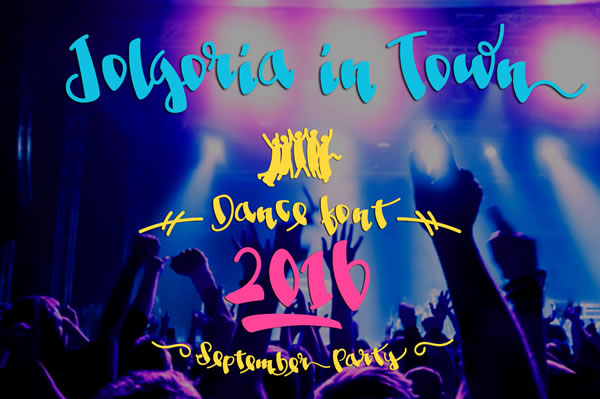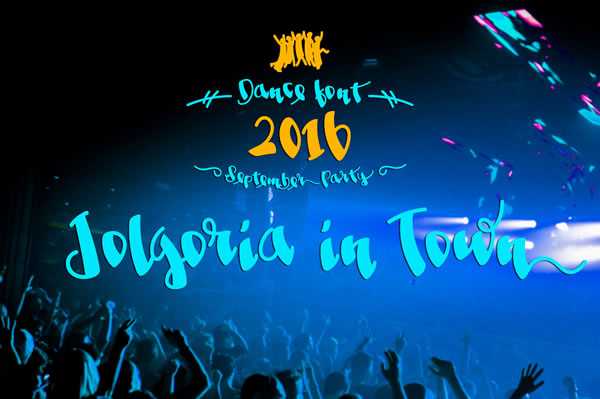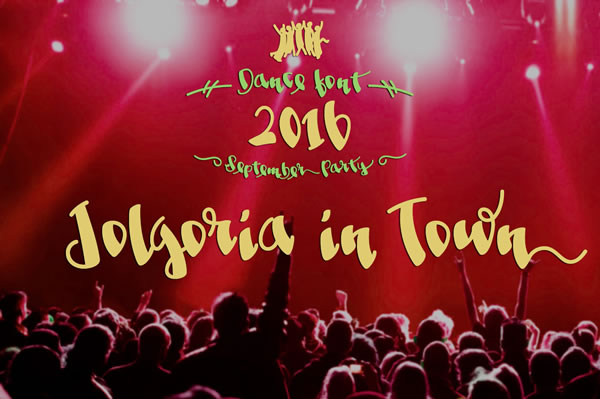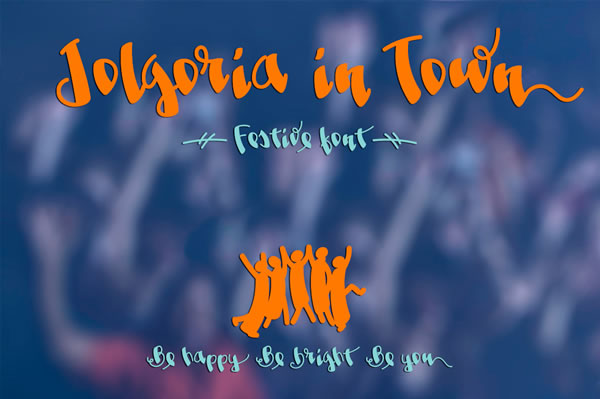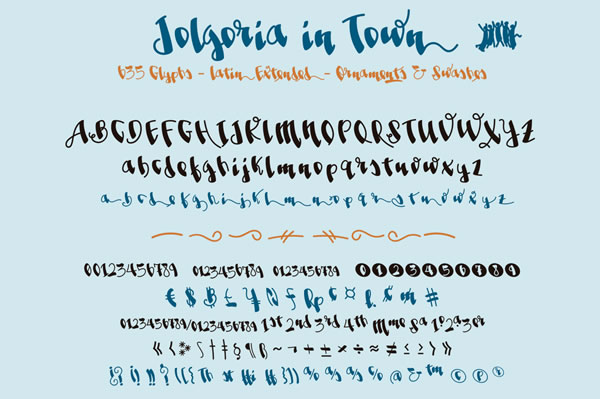
Jolgoria in Town Font
About Jolgoria in Town Font
Jolgoria in Town is a handmade typography with a funny calligraphy style. It has energetic movement that makes it ideal for elegant titles, party flyers or typographical posters.